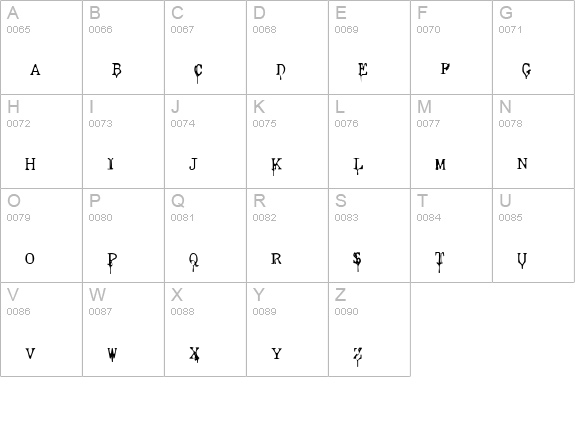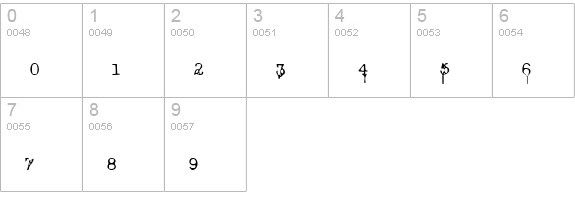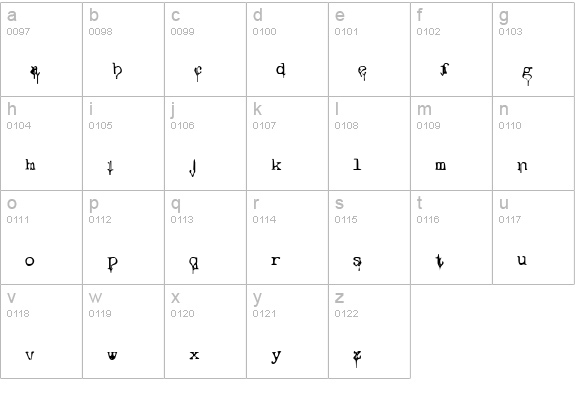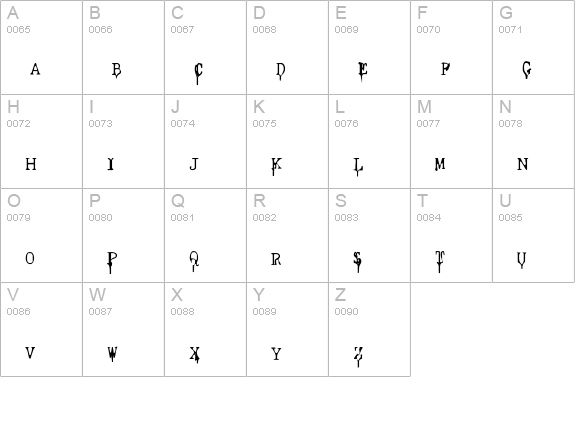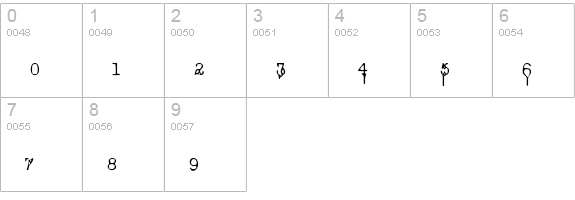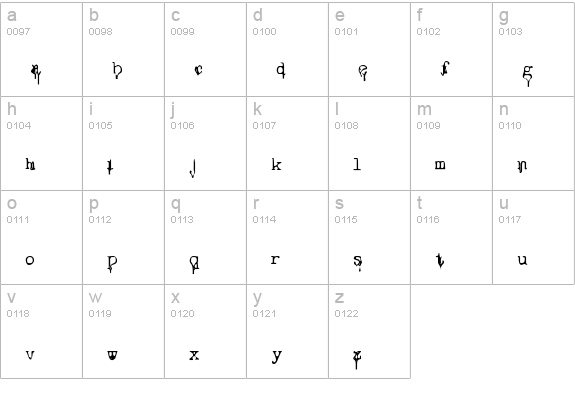
Nasal Drip Font Details
Nasal Drip font is a unique and quirky typeface that is perfect for adding a touch of playfulness to your designs. This font features irregular lines and a hand-drawn aesthetic that gives it a fun and spontaneous feel. With its dripping letters and uneven strokes, Nasal Drip font is sure to make a statement in any project. Best of all, Nasal Drip font is available for free download at FontsMarket.com. This means you can easily add this eye-catching font to your collection without breaking the bank. Whether you're working on a poster, logo, or social media graphic, Nasal Drip font is a versatile choice that will bring a touch of whimsy to your design. Download it today and let your creativity flow with Nasal Drip font!